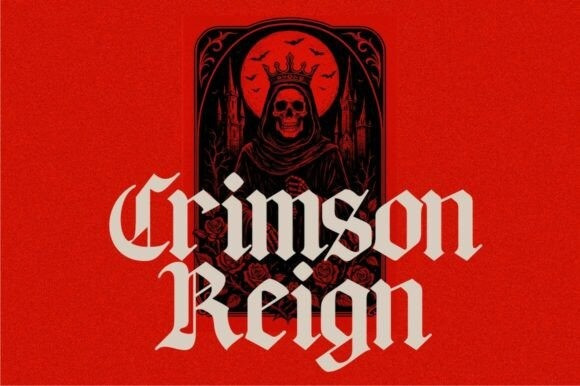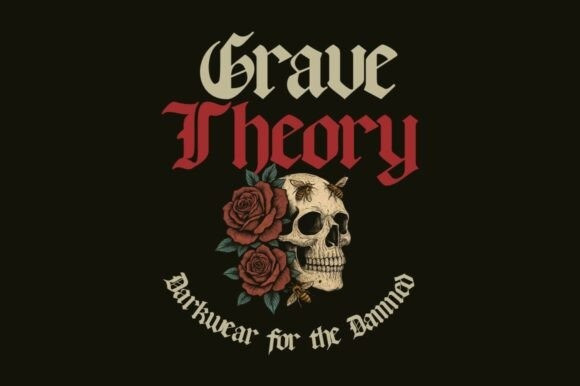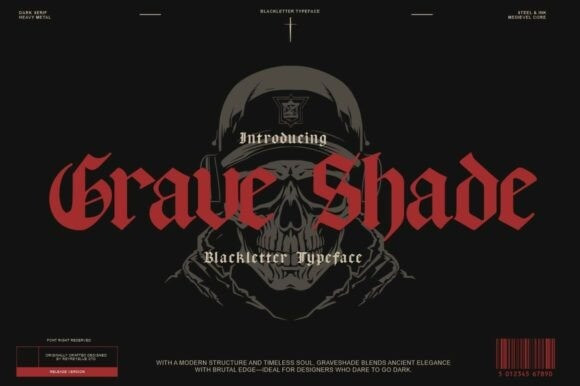
Grave Shade Font
Grave Shade Font is a bold blackletter typeface that combines medieval elegance with modern gothic power. Inspired by heavy metal aesthetics and dark serif traditions, this font delivers a brutal edge that’s perfect for horror posters, metal band logos, tattoo designs, gothic branding, and vintage occult merchandise.
With razor-sharp serifs and a commanding presence, Grave Shade is ideal for designers who crave intensity and a timeless gothic feel. Each character is meticulously crafted to evoke the ancient art of calligraphy while staying clean and contemporary.